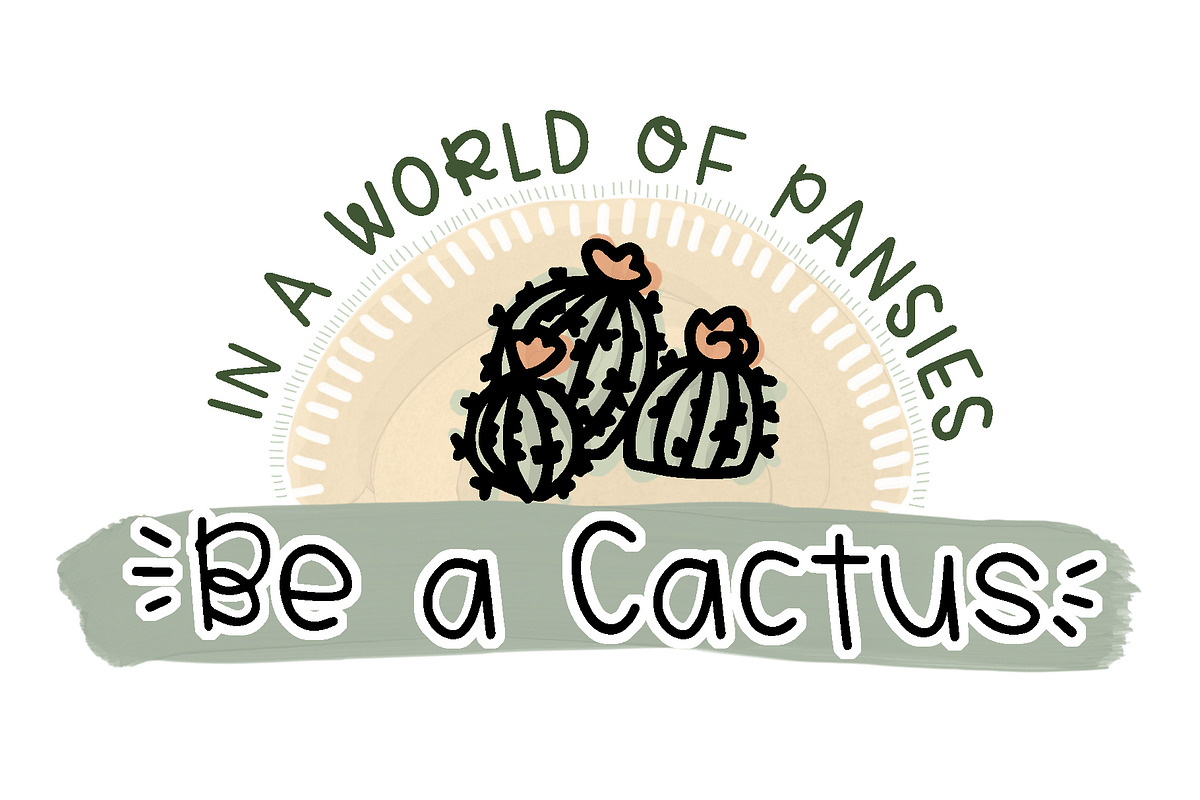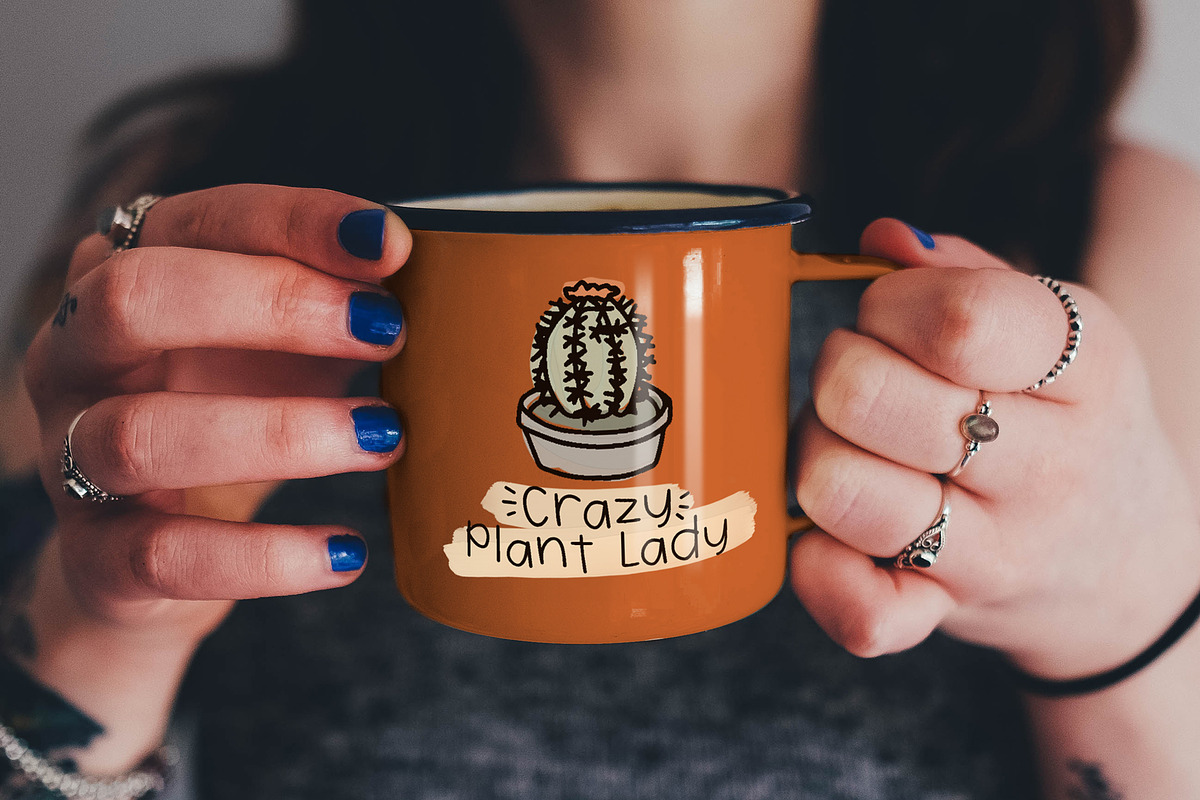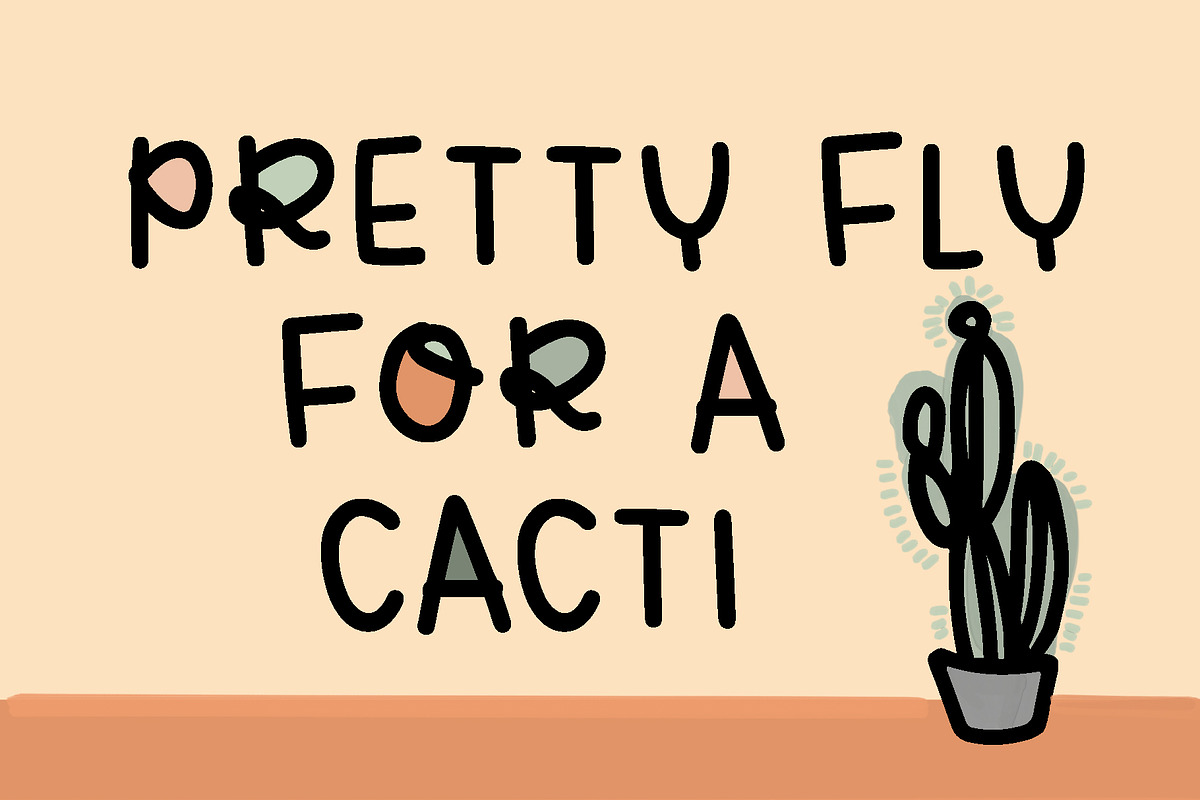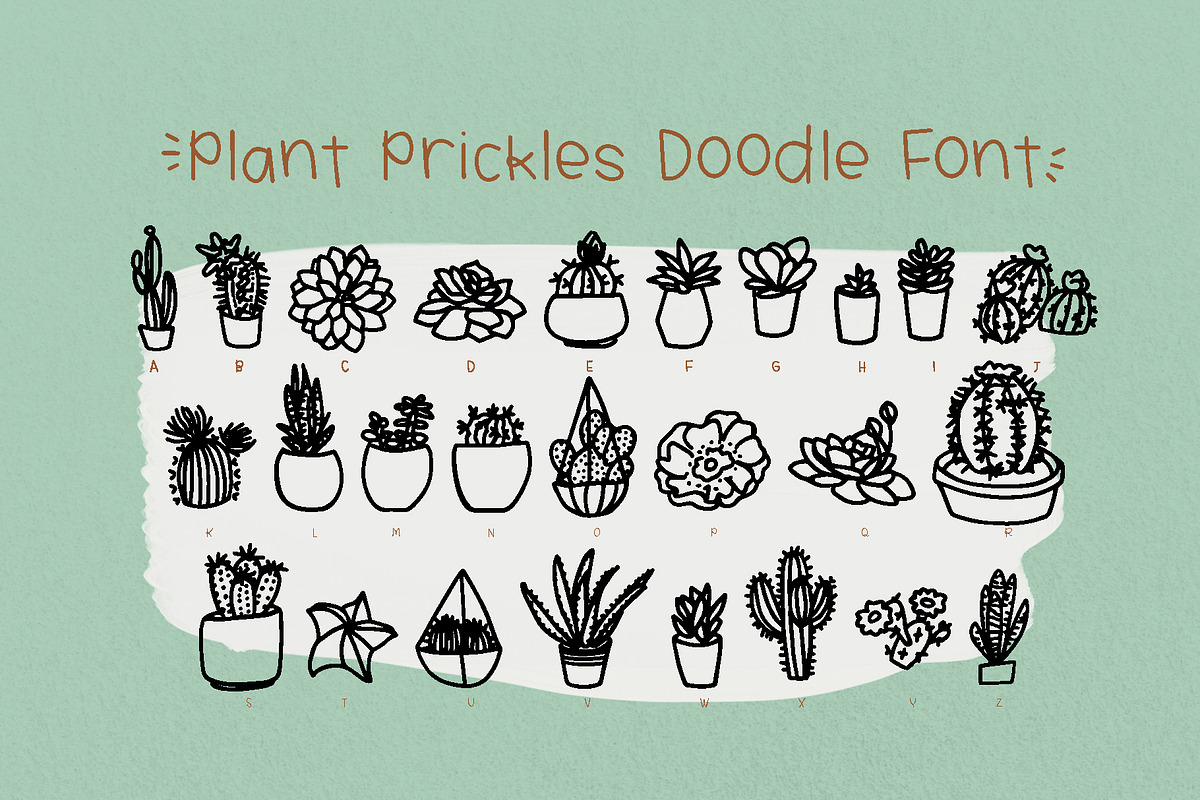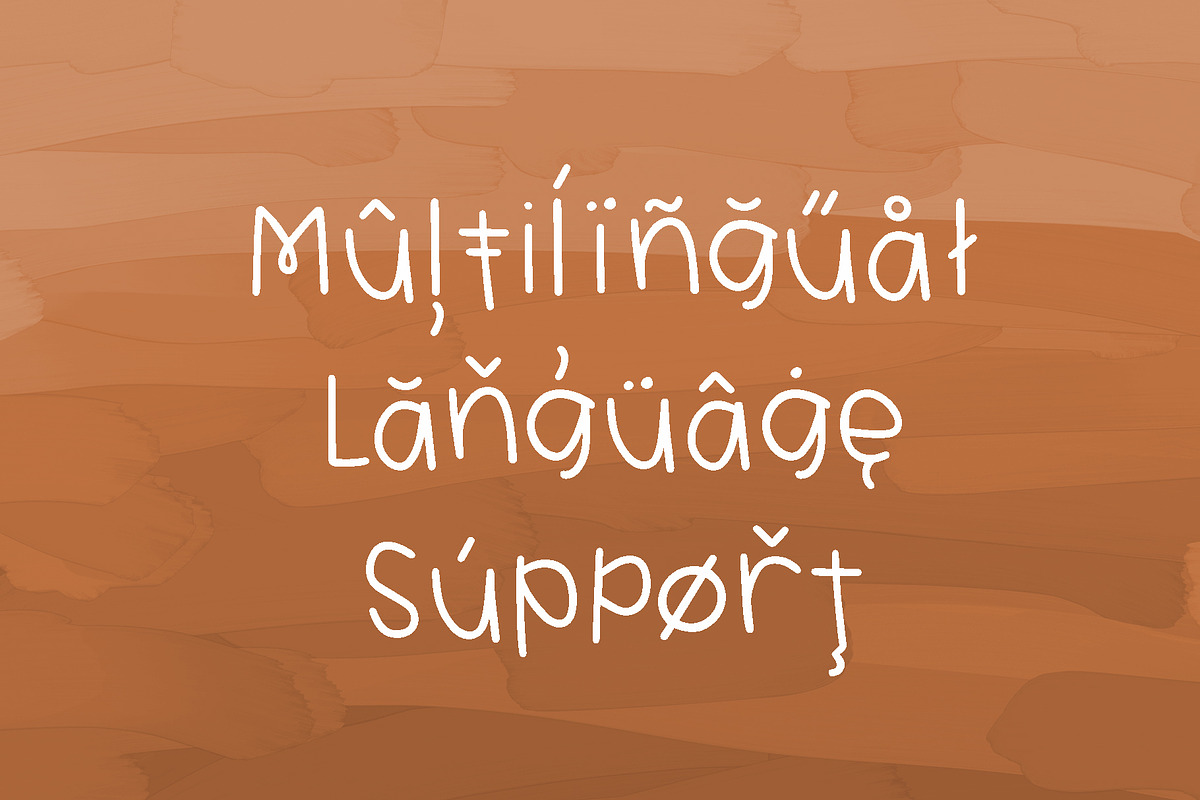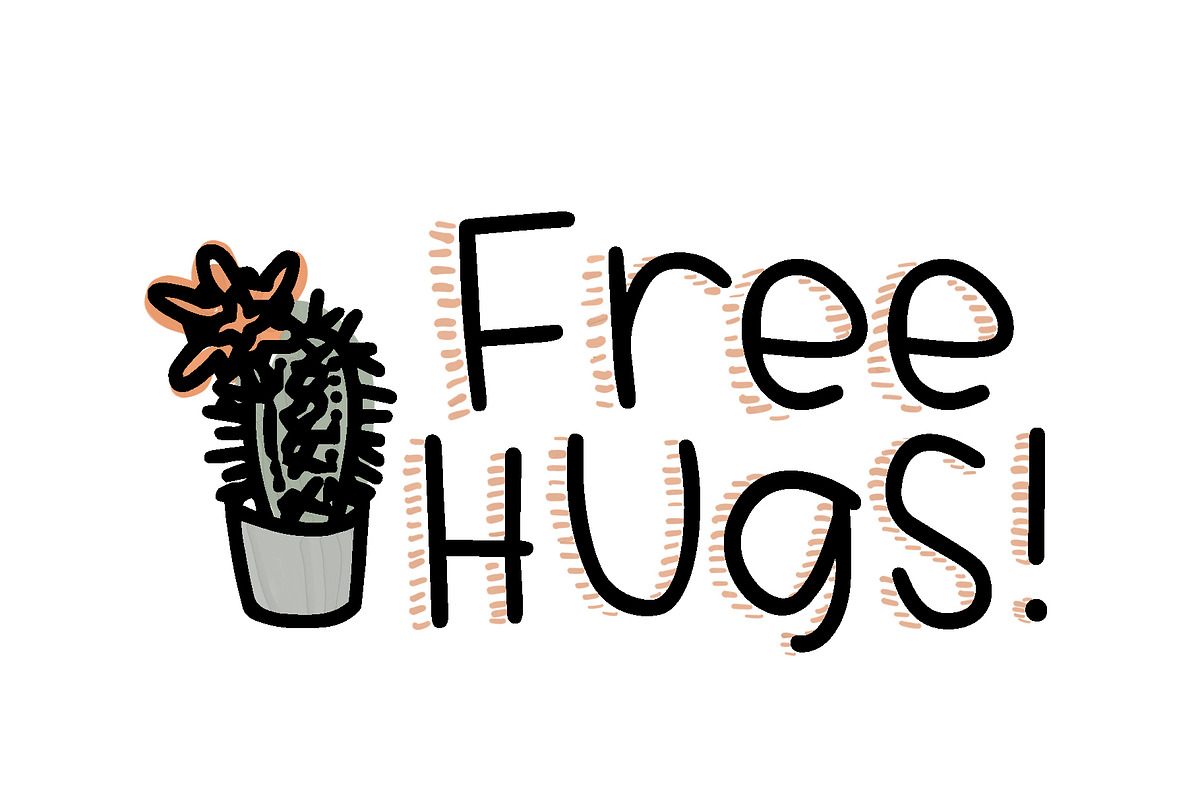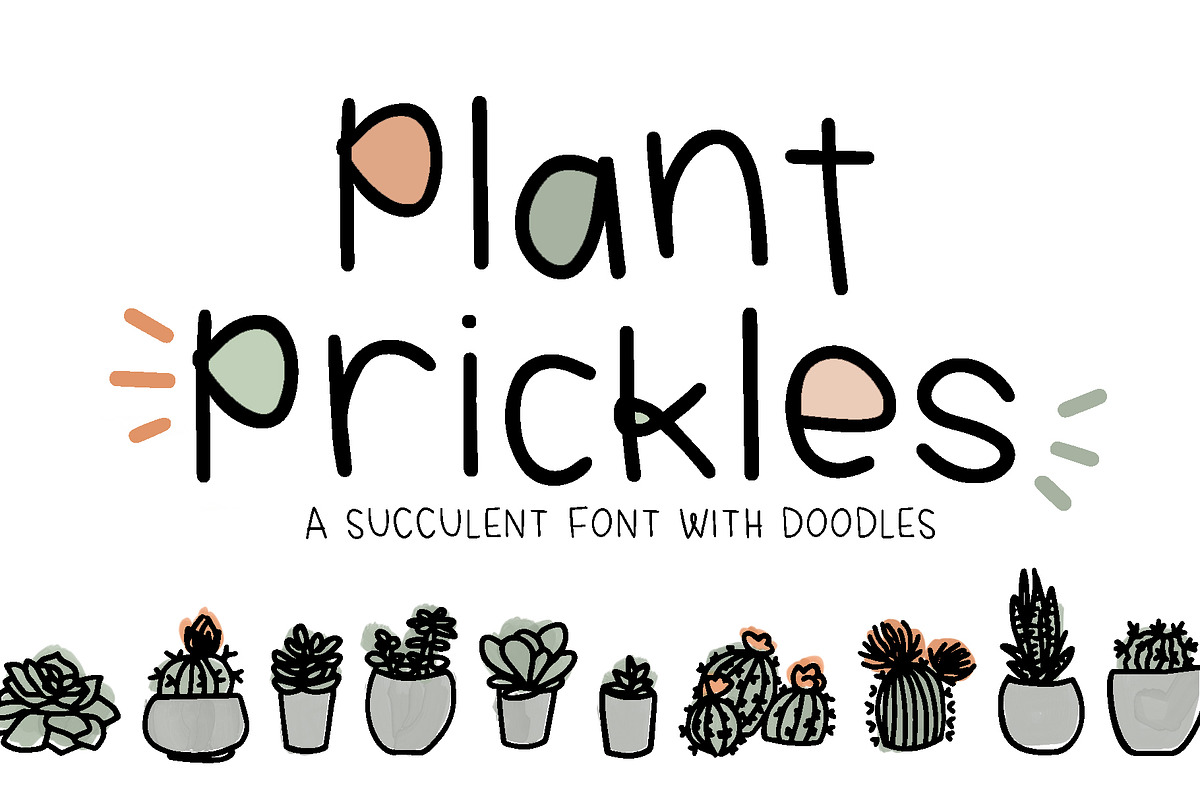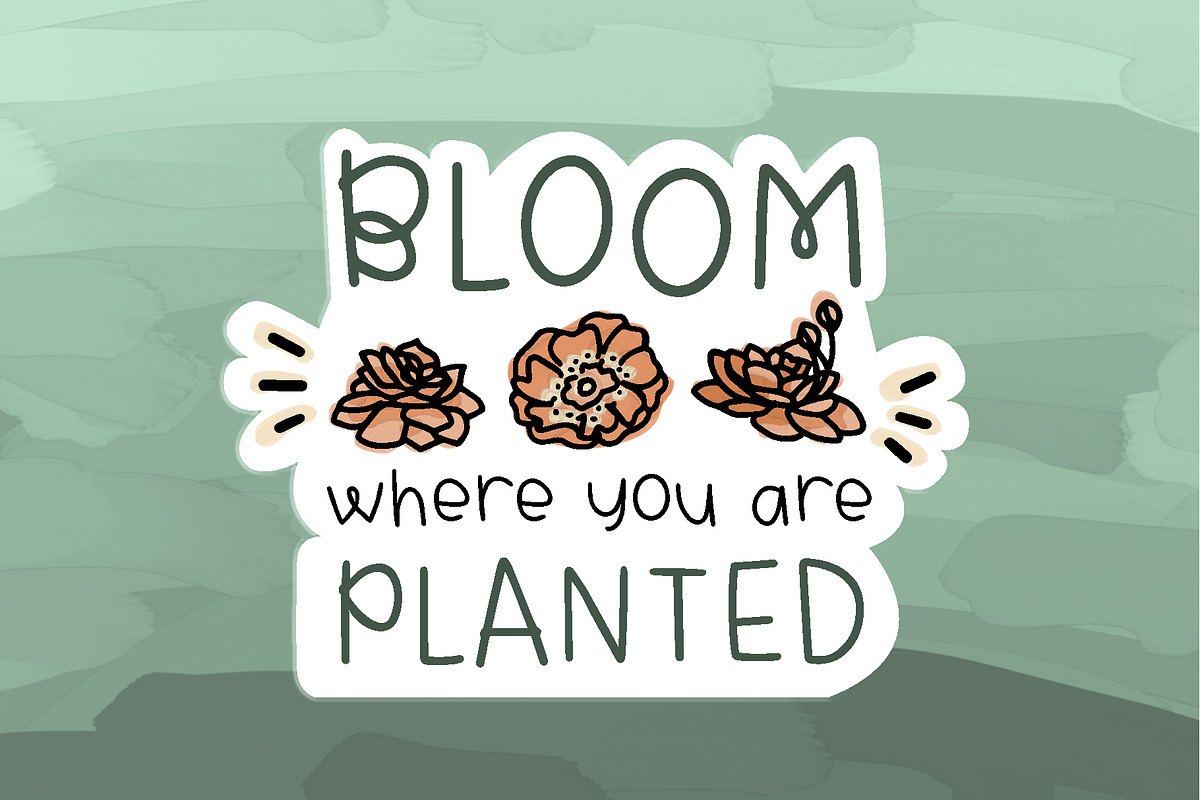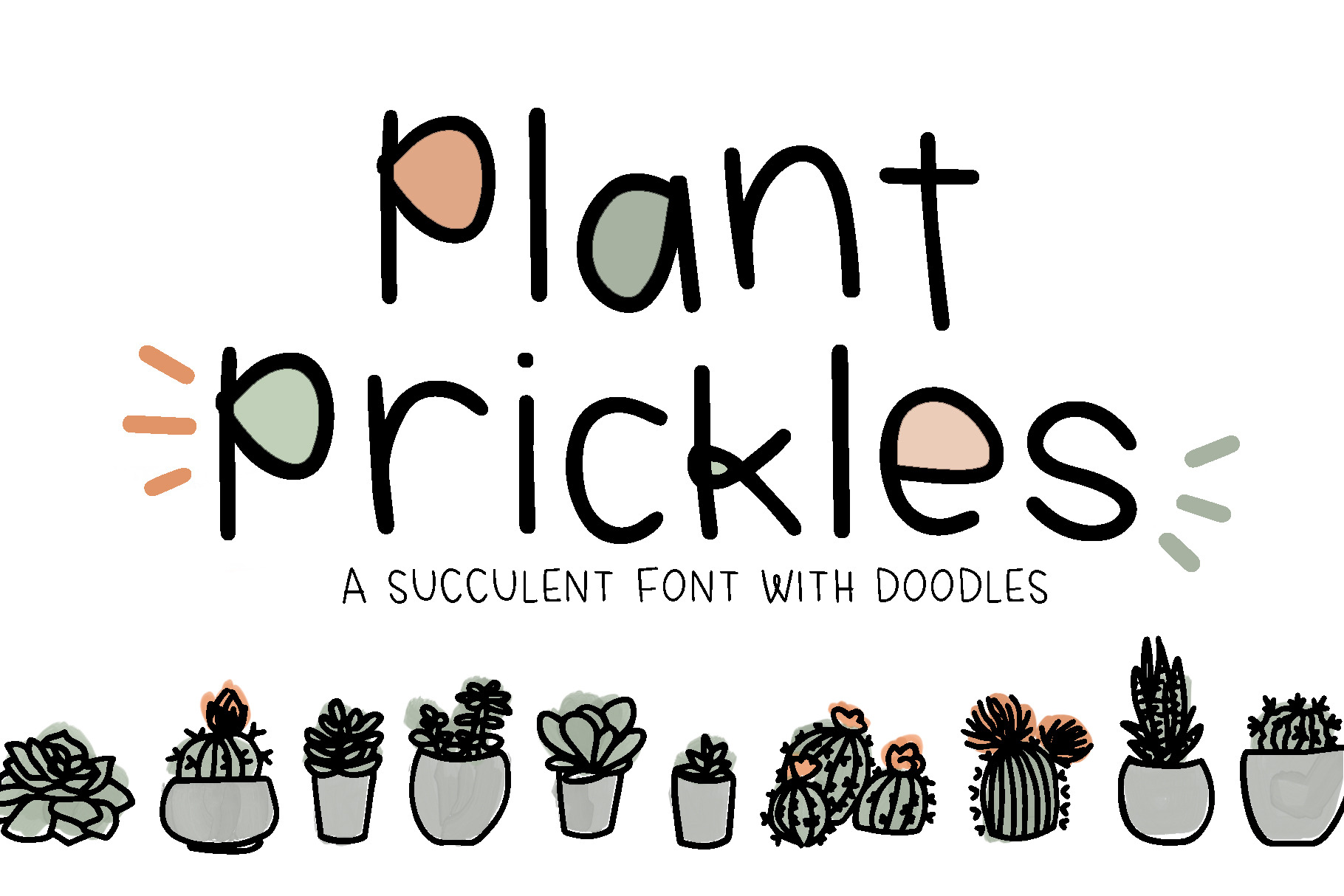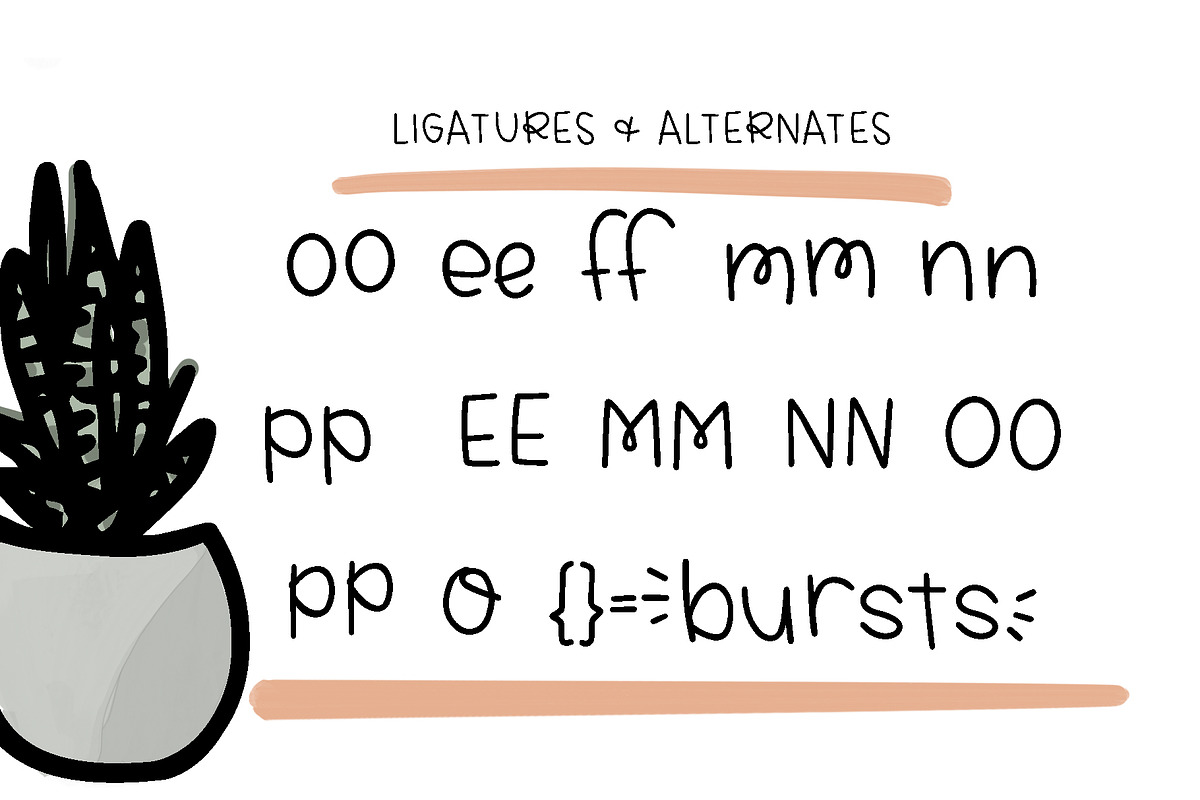
Plant Prickles Font
Plant Prickles is a cute, easy to read, handwritten sans-serif font. The doodles are so fun for all the crazy plant lady and cactus puns--they would be awesome on t-shirts.
- 2 fonts (handwriting & doodles)
- Uppercase and lowercase characters, numbers & punctuation, ligatures
- Western European language support (German, Finnish, Danish, Norwegian, French, Irish, Scottish, Portuguese, Spanish, Swedish, Italian, Dutch, Flemish, Afrikaans, Frisian)